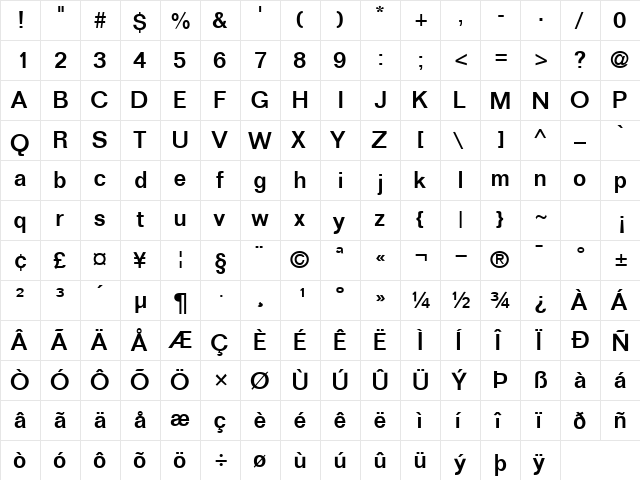
LayoutSSK Regular
Design Context for LayoutSSK Typeface
LayoutSSK offers clean, dependable letterforms without strong stylistic allegiance, making it a practical choice for designers who need flexibility.
Pro Tip: Pair LayoutSSK with a font of contrasting weight or personality to build a more expressive typographic hierarchy.